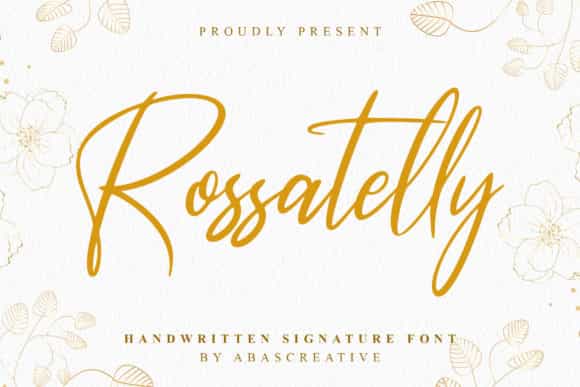
Discover Rossatelly Handwritten Font, part of the Handwritten Script collection—a versatile and unique font perfect for adding a personal touch to your projects. Download it for free and enjoy crafting designs with style, from invitations to social media posts. This font is available exclusively for personal use, giving you the freedom to create without limits. Unlock your creativity with Rossatelly Handwritten Font today!
Rossatelly is a stunningly made with a genuine handwriting signature font. It is evident that, the line-of-sight of the thin and bold lines allows for perfect hand lettering style just by pressing the keyboard!